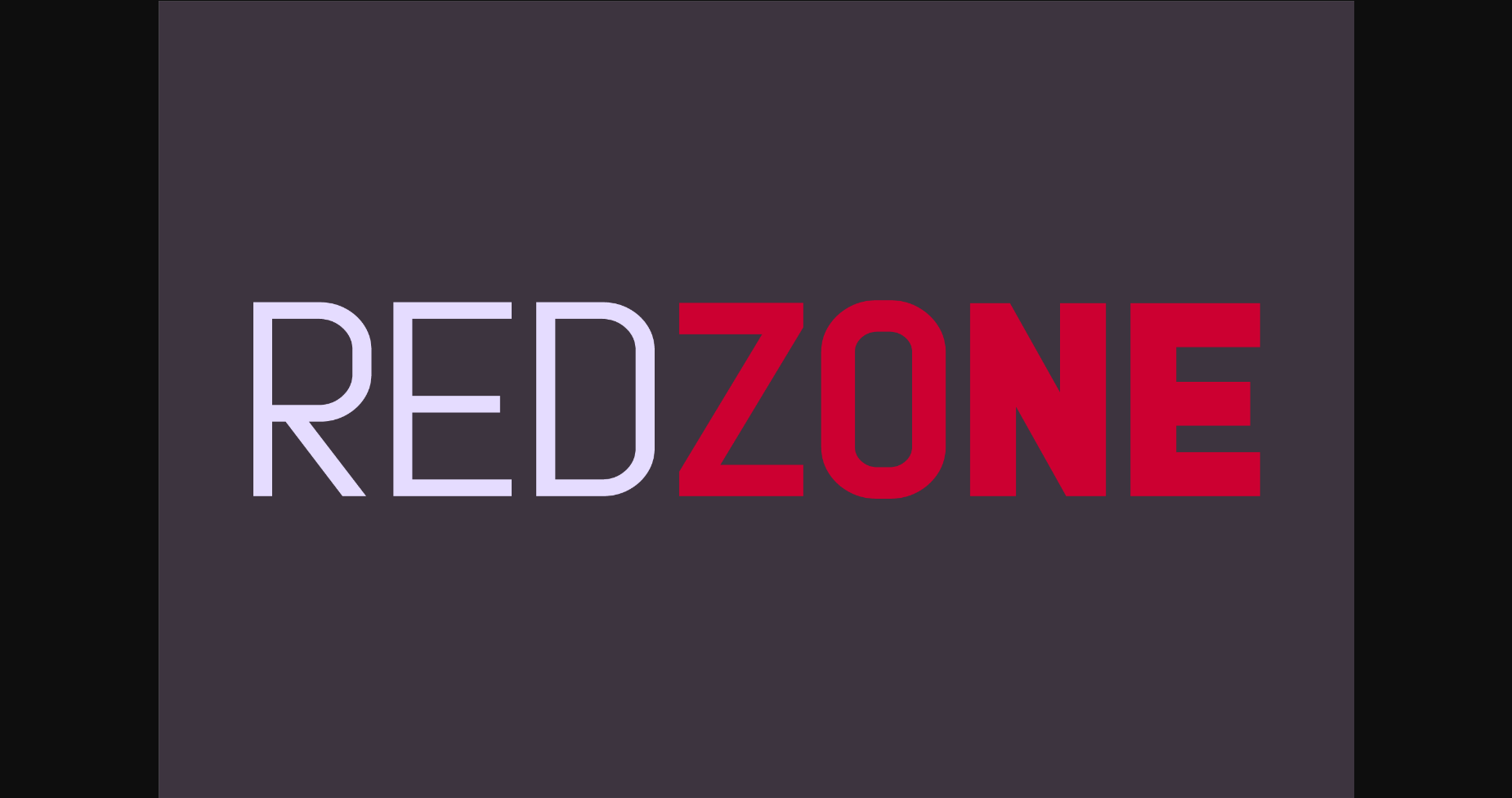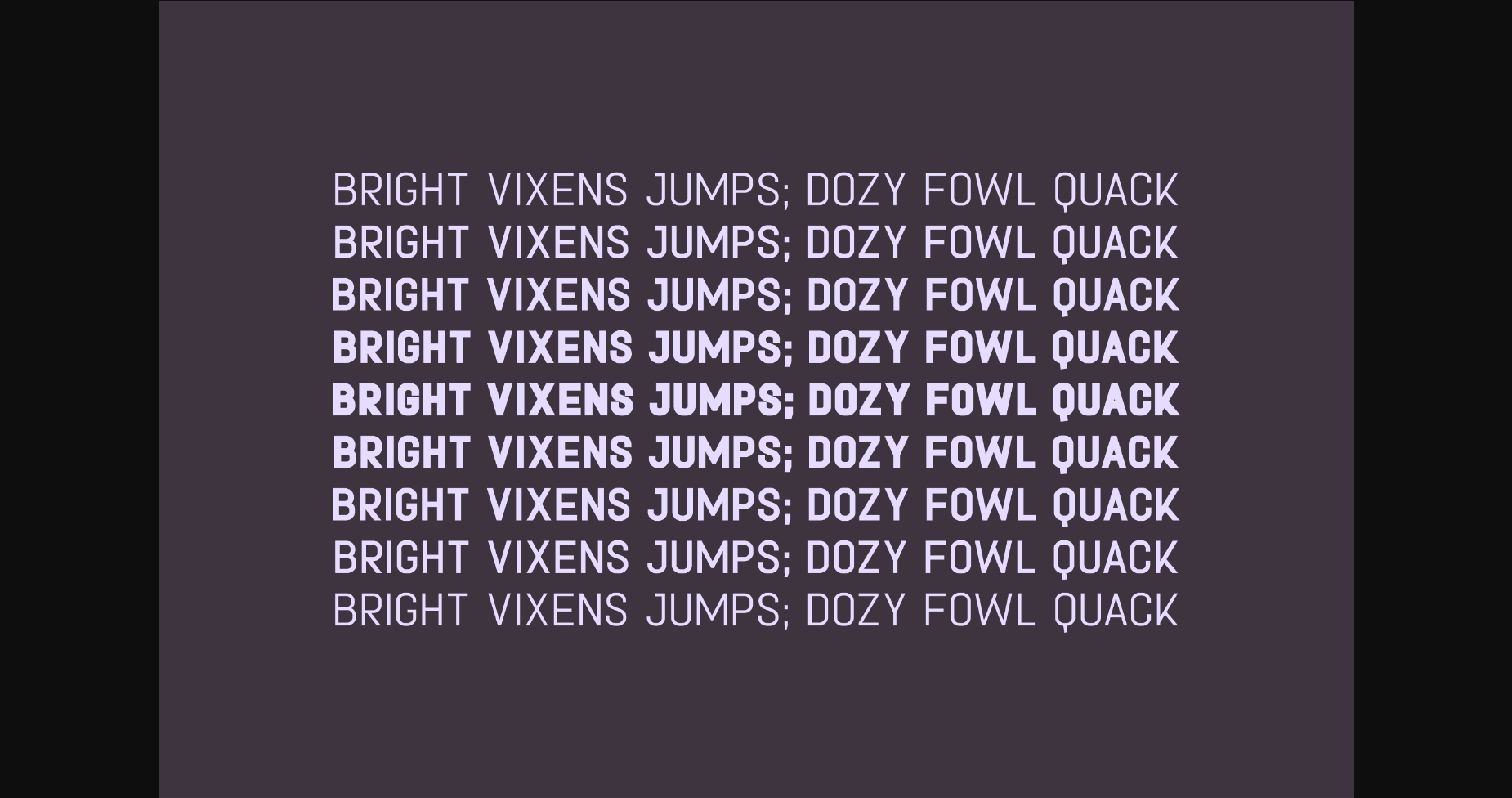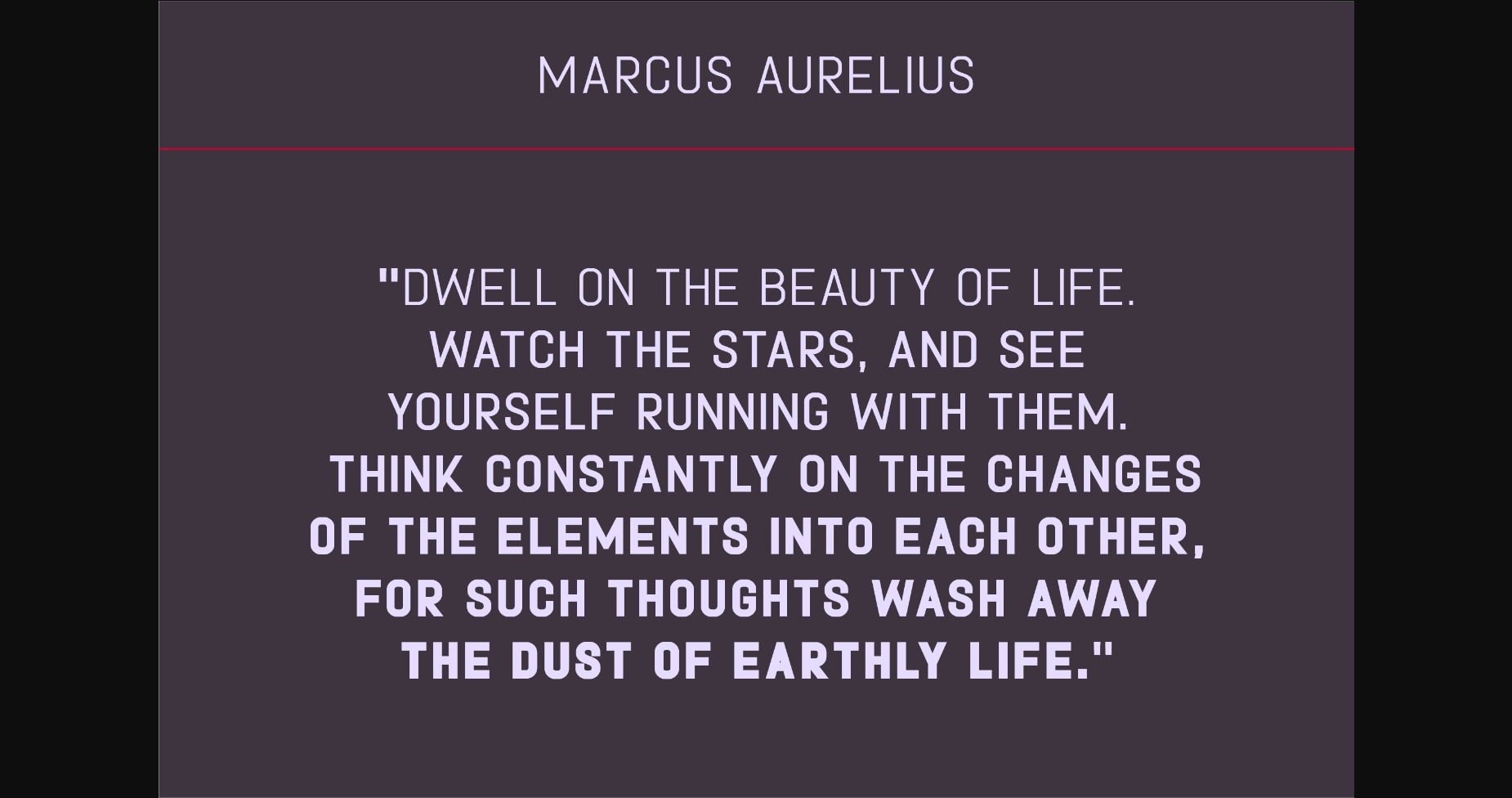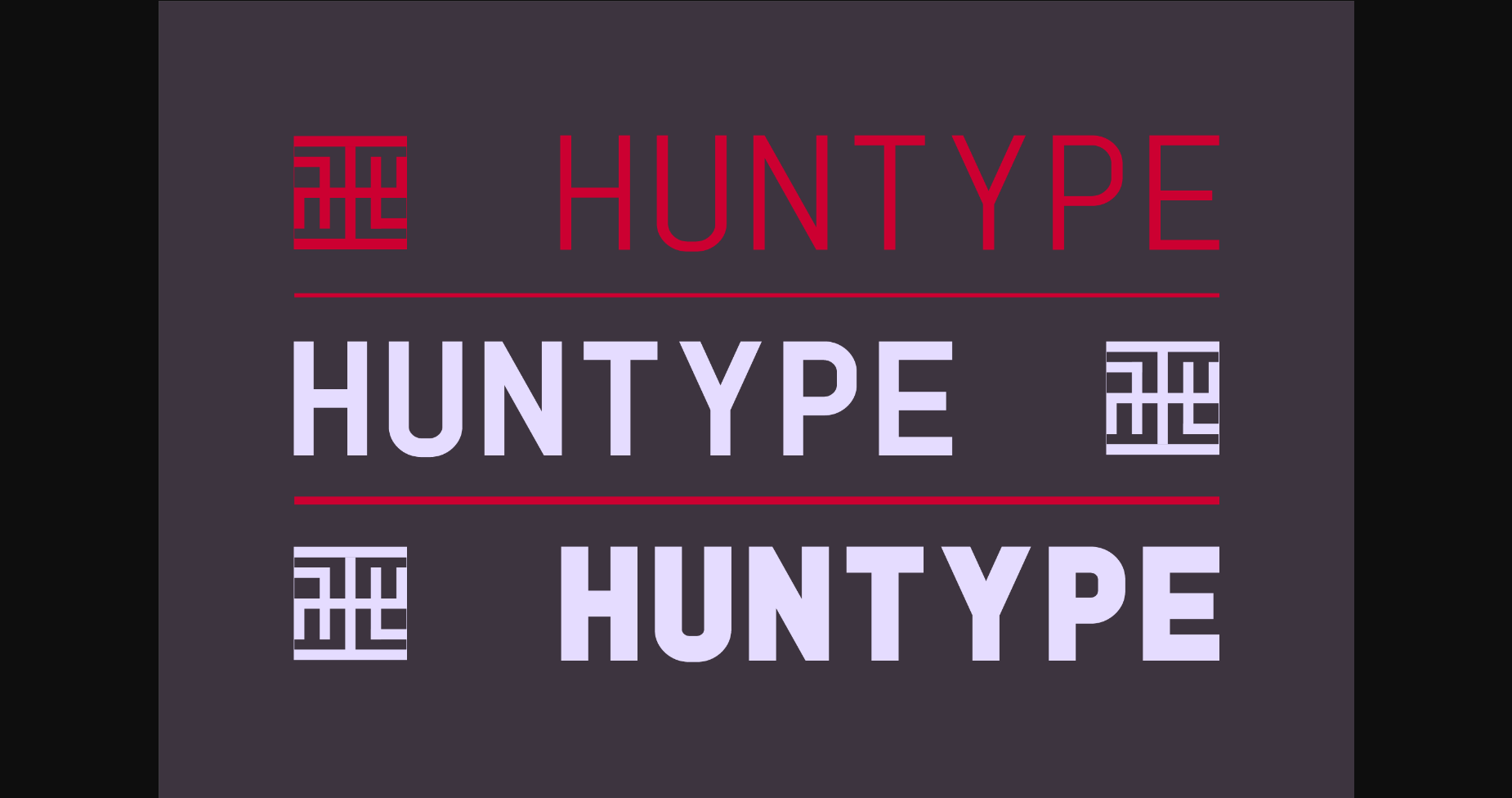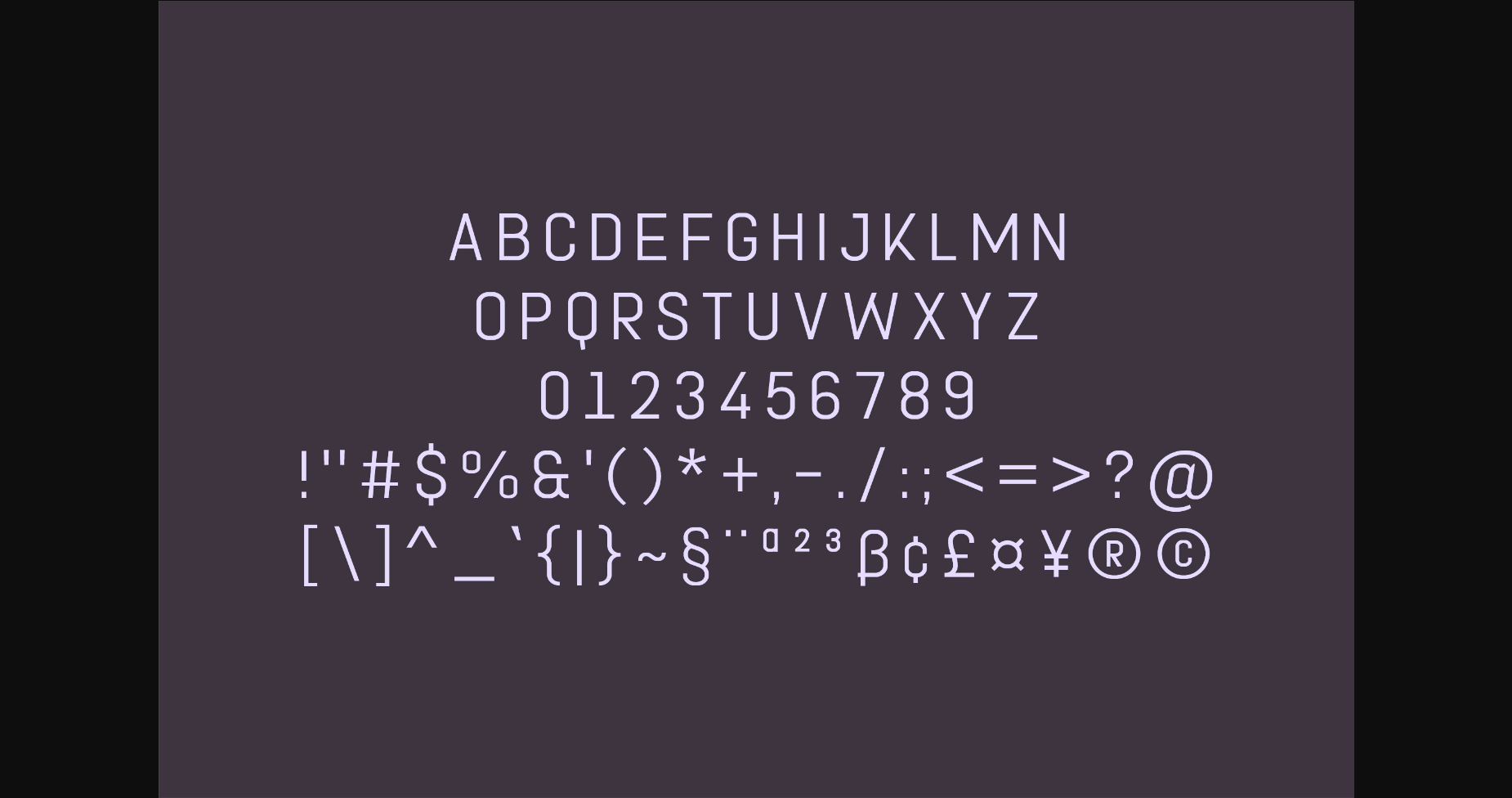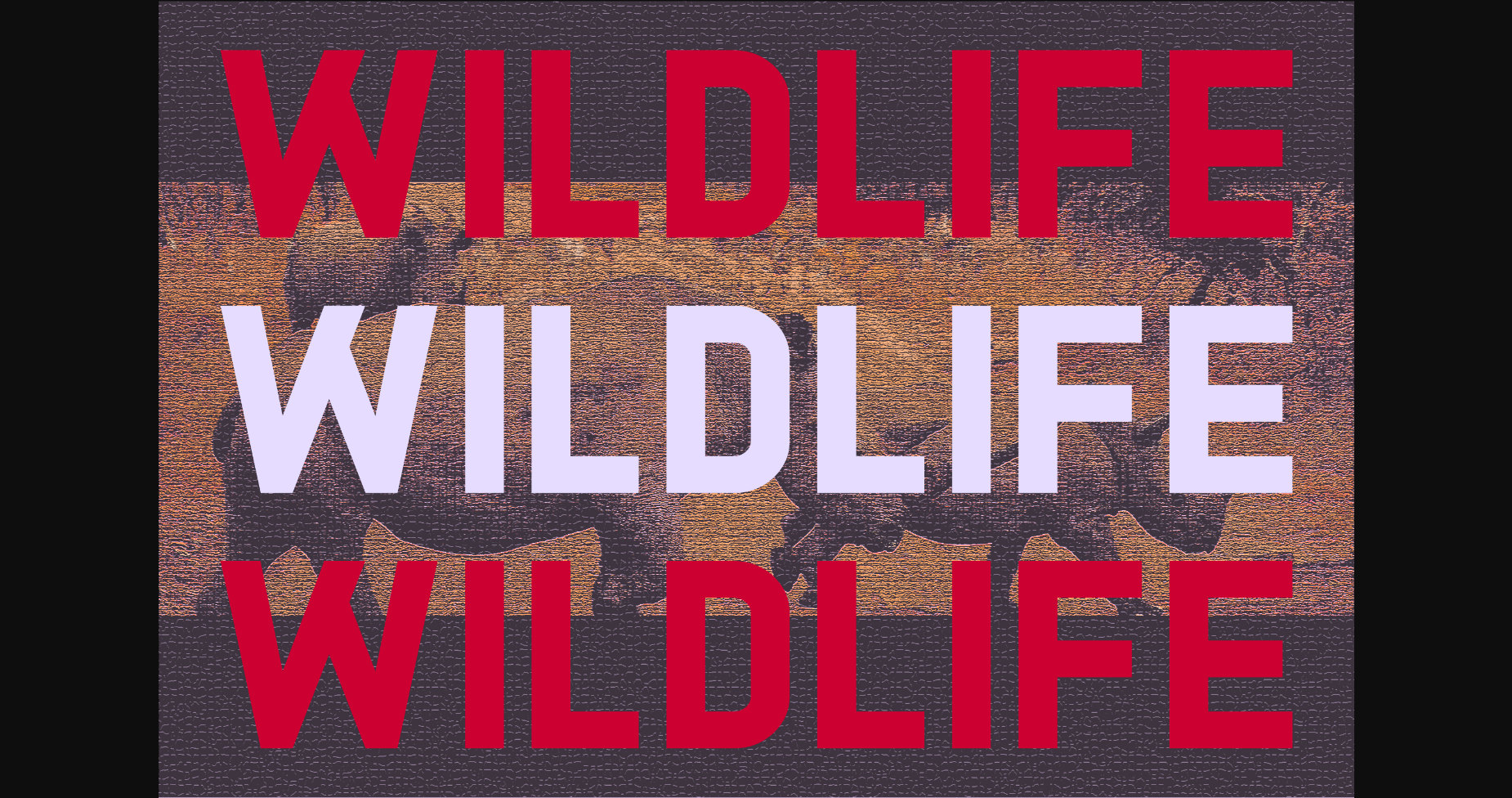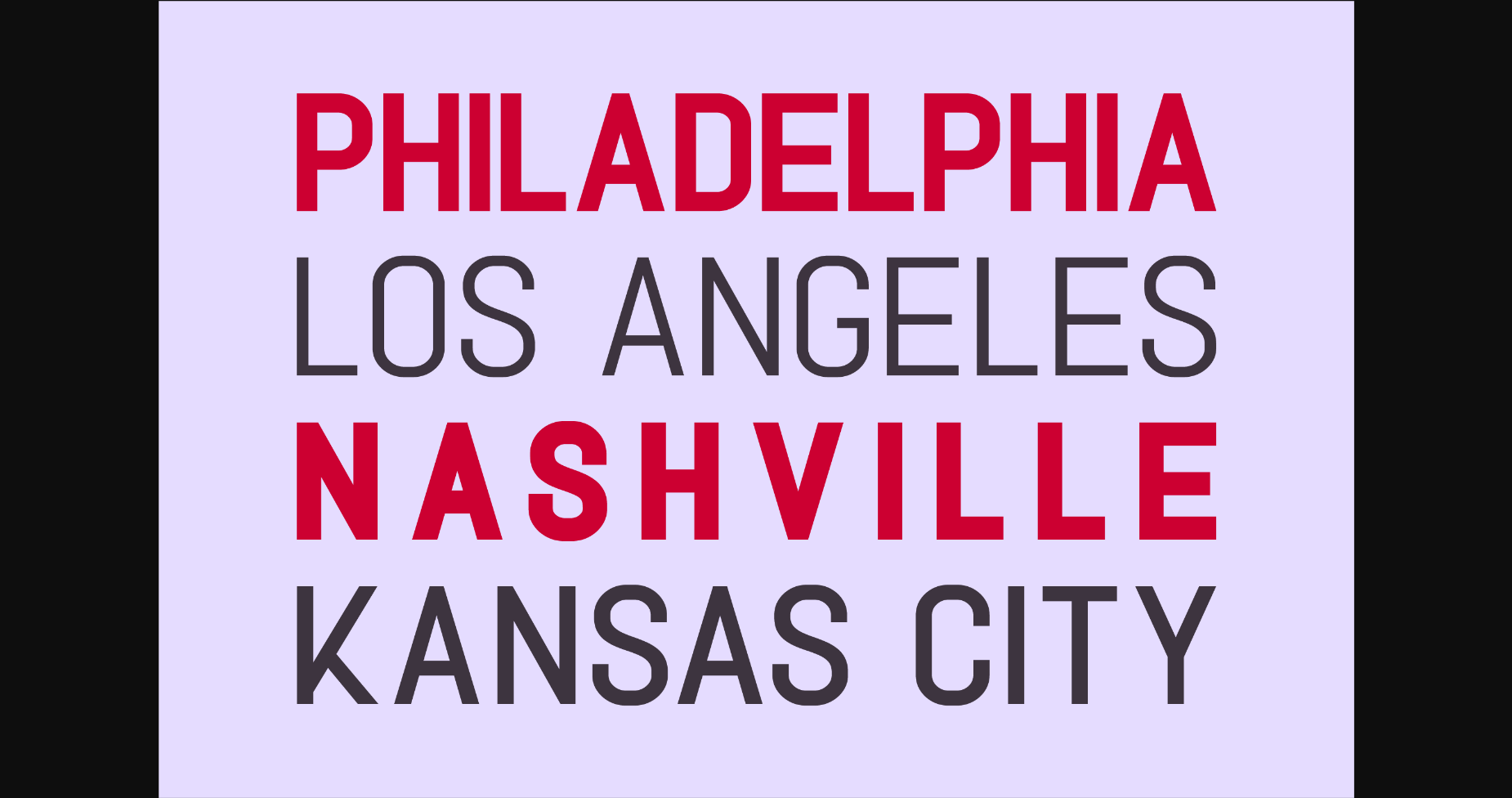
HomeSans Serif FontsRedzone Font Sans Serif Fonts Redzone Font FacebookXPinterestWhatsApp 1 of 9 ... Redzone Font Poster 2... Redzone Font Poster 3... Redzone Font Poster 4... Redzone Font Poster 5... Redzone Font Poster 6... Redzone Font Poster 7... Redzone Font Poster 8... Redzone Font Poster 9... About Redzone Font With smooth and clean lines, and just a touch of contrast, Redxone works beautifully for logos, branding, and web headings. DOWNLOAD NOW People also explored Yellow Citrus Font Merlia Font Magic Airs Font The Bafels Font Lantakaju (Copy) Spooky Font Delaney Script Font February Love Font Baswara Catra Font 358 0 TagsRedzoneRedzone Font Previous articleMonstera FontNext articleBreak Resbonger Font LEAVE A REPLY Cancel reply Comment: Please enter your comment! Name:* Please enter your name here Email:* You have entered an incorrect email address! Please enter your email address here Website: Save my name, email, and website in this browser for the next time I comment. Personal Use Free Retro Free Personal Use Free Read more about this font Dream Orphans Personal Use Free Read more about this font Baveuse Personal Use Free Read more about this font Over the Top Personal Use Free Read more about this font BLOG Fonts That Capture the Spirit of New York City New York City is more than just a place—it’s an experience, a rhythm, a visual language... 5 Fonts That Will Dominate Design Trends in 2026 Transform Your Website: Elevate Your Typography with 7 Best Web Font Generators Where to Buy American Fonts Online in 2024